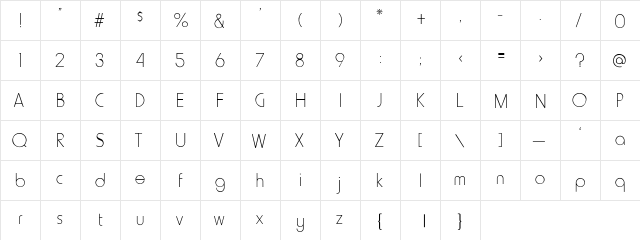
Kimerly Lite Regular
Design Context for Kimerly Lite Typeface
Kimerly Lite takes a measured approach to typography — its balanced proportions and neutral character make it a reliable workhorse for both digital and print work.